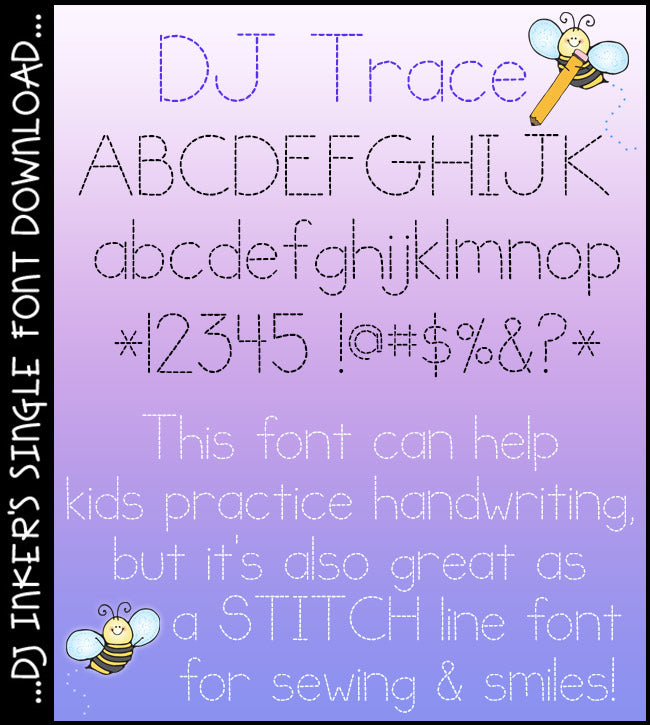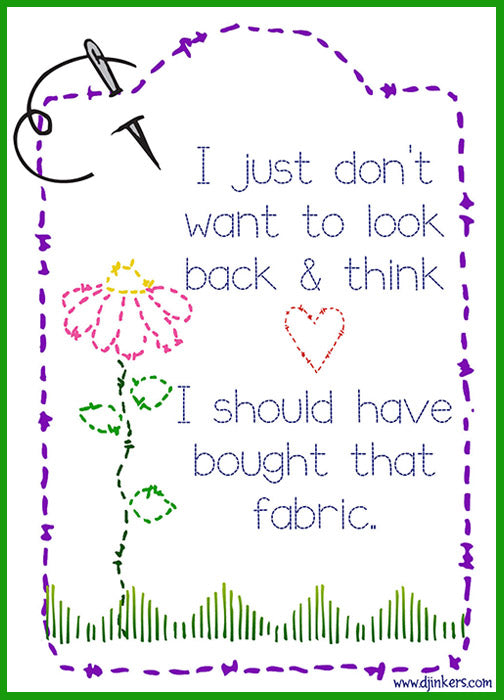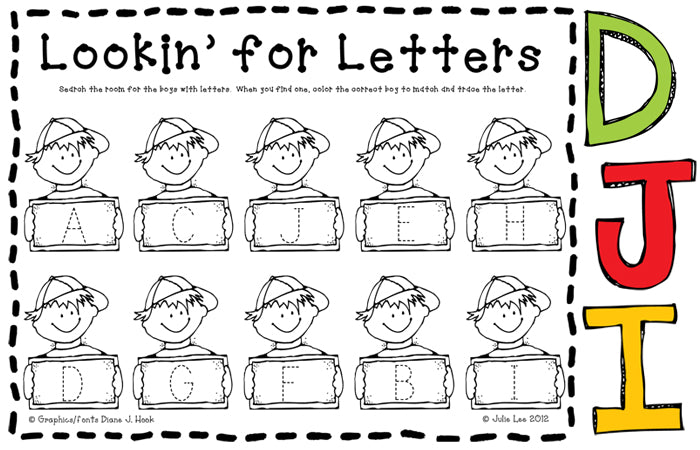
I'm going to be using this font a lot! It's perfect for creating Pre-K and Kinder worksheets!
This is a great resource to use for my students so they are able to do name practice or any kind of tracing activity.
This was a great font to make modified and adapted resources for my students.
Great way to practice tracing letters and words during centers!
I really love this handwriting font! Perfect for some writing activities I'm working on. Thank you :)
Great resource! I used this resource during summer school while I was working with the little ones. Great way to target letter formation and printing skills. Highly recommend! Thank you.
I needed a thick dash lined font for my K students. This worked perfectly!
This font was perfect for helping my kindergarteners trace their letters and names!